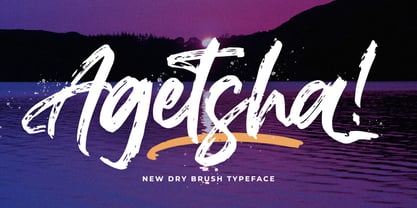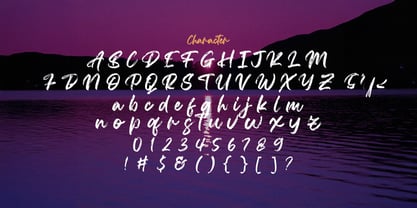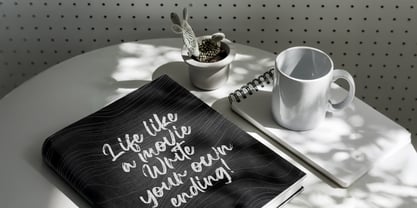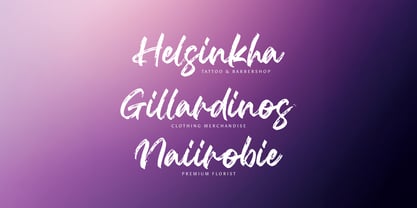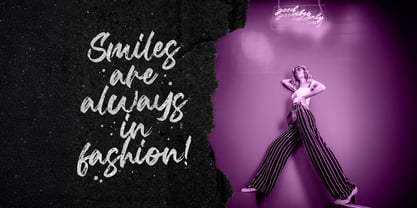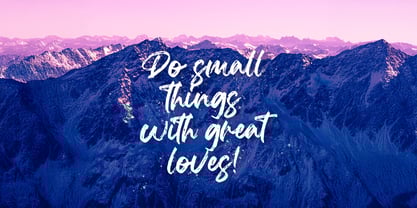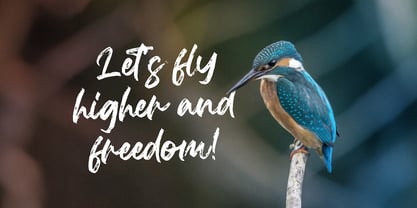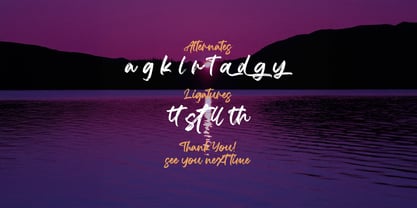
The Agethsa Font Family was designed by Virgiawan Listanto and published by Stringlabs Creative Studio. Agethsa contains 1 styles. More about this family
Agethsa is a bold and raw textured brush font that captures the energy of hand-painted lettering. With rough edges, dynamic strokes, and a rebellious feel, this font is perfect for designs that demand power, creativity, and authenticity. Whether you're working on streetwear branding, album covers, or eye-catching posters, Agethsa brings a fearless, handcrafted vibe that stands out.
Designers: Virgiawan Listanto
Foundry: Stringlabs Creative Studio
Agethsa